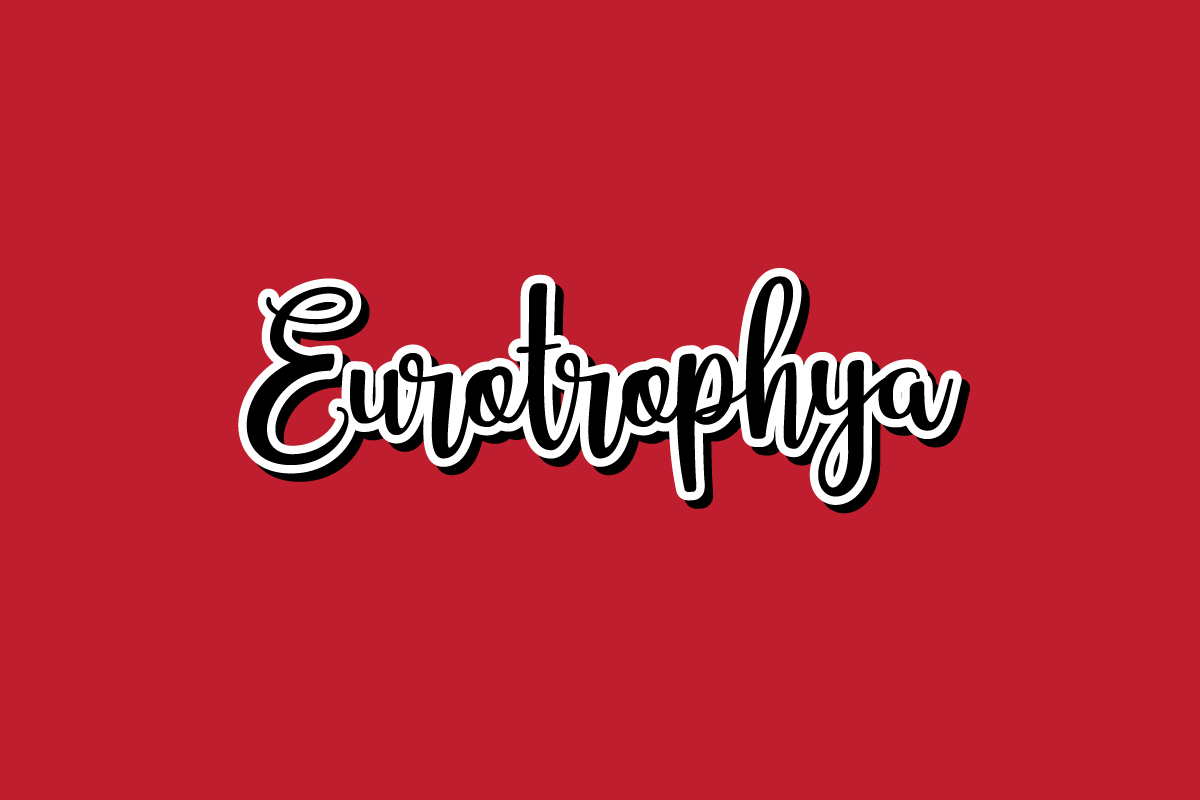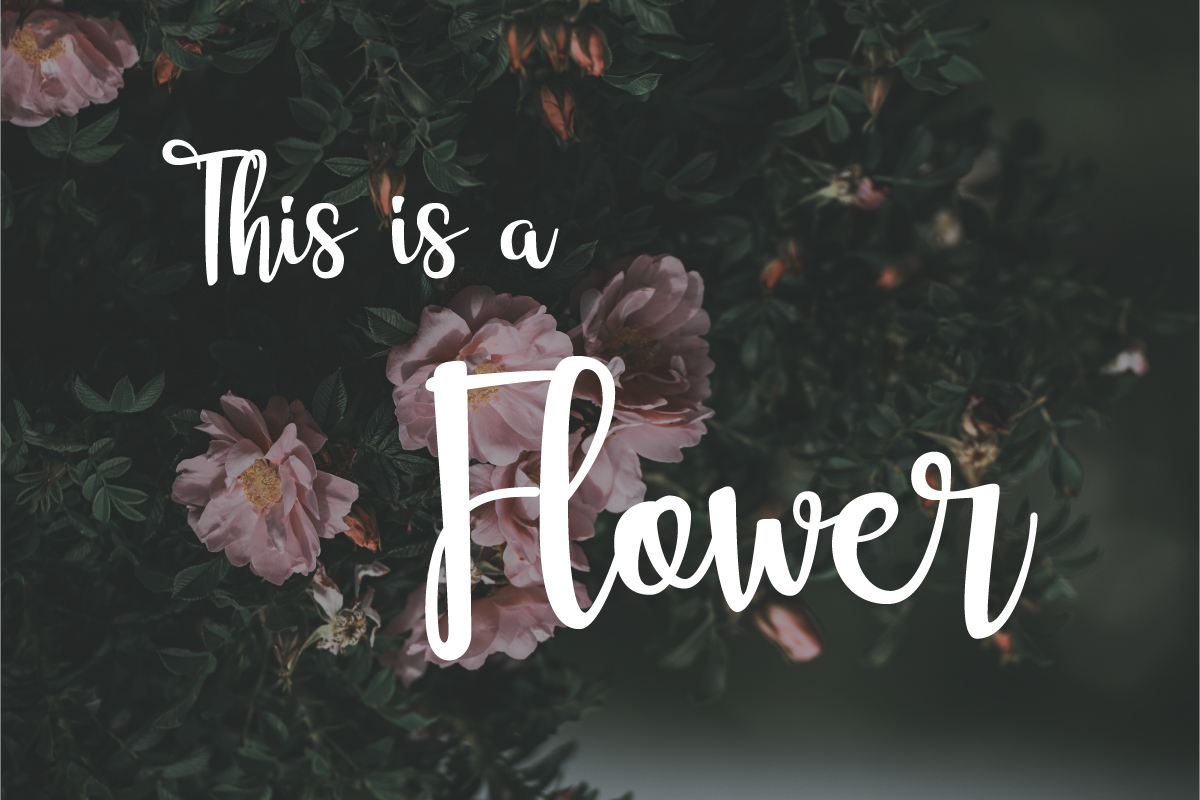
The Caldwell Script Font
Introducing… The Caldwell Script Font is a dry handbrushed font, designed to combine perfectly and allow you to create stunning hand-lettering quickly and easily. Ideal for logos, handwritten quotes, product packaging, header, poster, merchandise, social media & greeting cards. The Caldwell comes with upper and lowercase characters, large set of punctuation glyphs, numerals, and supports international languages. Stylistic alternates, swashes, for several key lower case characters are also available.